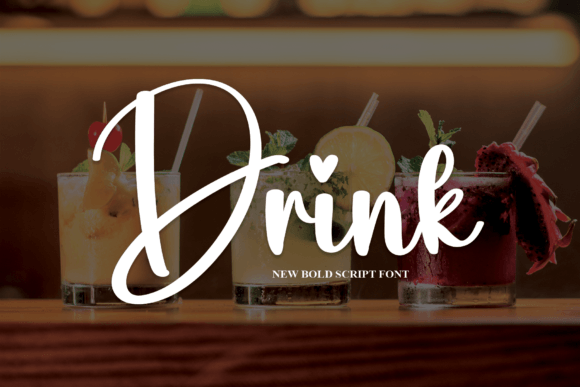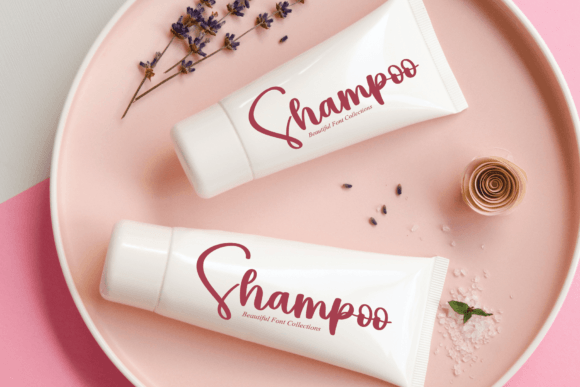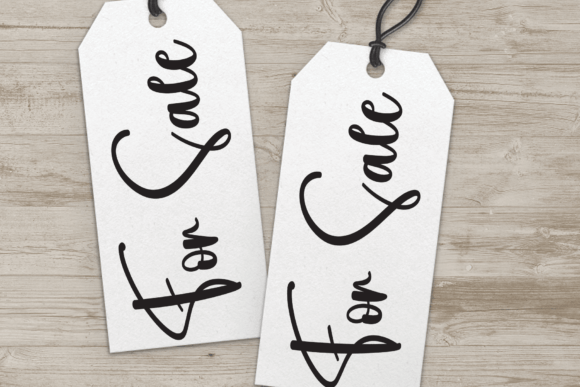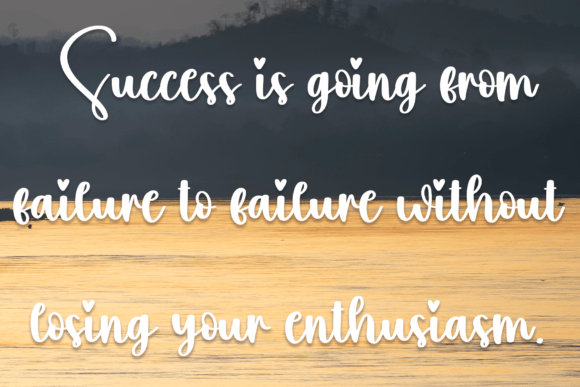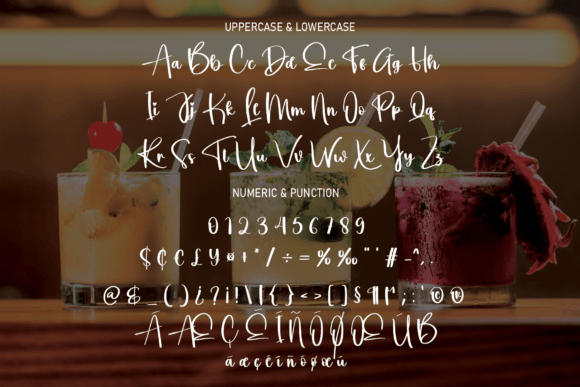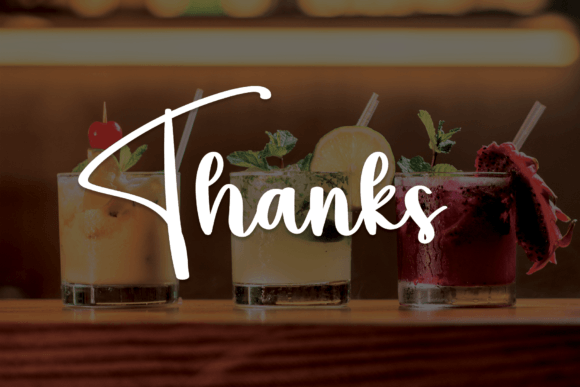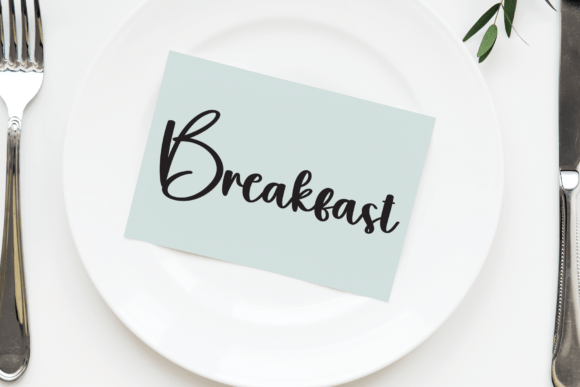
Drink Font
About Drink Font
**”Drink”** is more than just a font; it’s a delightful fusion of loveliness and sweetness, meticulously crafted to infuse your designs with joy and romance. Its gentle, handwritten script style makes it an ideal choice for a diverse range of creative projects. Whether you’re working on invitations, quotes, posters, packaging, or any other design idea, “Drink” effortlessly adds a touch of happiness and romanticism, elevating your projects to new heights.
Picture your invitations adorned with the lovely and sweet characters of “Drink,” each letter exuding a sense of warmth and affection. Envision your quotes, each word penned in this font, radiating positivity and joy. Posters and packaging gain a unique charm when designed with “Drink,” leaving a lasting impression on viewers.
“Drink” isn’t just a font; it’s a design essential that adds a layer of sweetness to your projects. Its gentle, handwritten style creates a sense of intimacy and tenderness, making your designs feel heartfelt and genuine. The font’s delightful charm becomes a visual signature, reflecting your dedication to creating joyful and romantic experiences.
In a world where emotions are conveyed through design, “Drink” stands out as a symbol of love and happiness. Its sweet script and joyful demeanor add a layer of warmth to your designs, making them memorable and heartwarming. When you choose “Drink” for your projects, you’re not just selecting a font; you’re making a statement—a statement of love, happiness, and a touch of romanticism.
So, whether you’re a professional designer aiming to spread positivity or an individual with a passion for creating heartfelt designs, “Drink” is your trusted companion. It’s more than just a font; it’s an opportunity to infuse your designs with the sweetness of handwritten love. Let “Drink” be the brush that paints your imagination and the joyful touch that transforms your projects into expressions of romance and happiness. With “Drink,” your creative endeavors are bound to shine with love and joy, leaving a lasting impression on anyone who experiences their heartfelt charm.